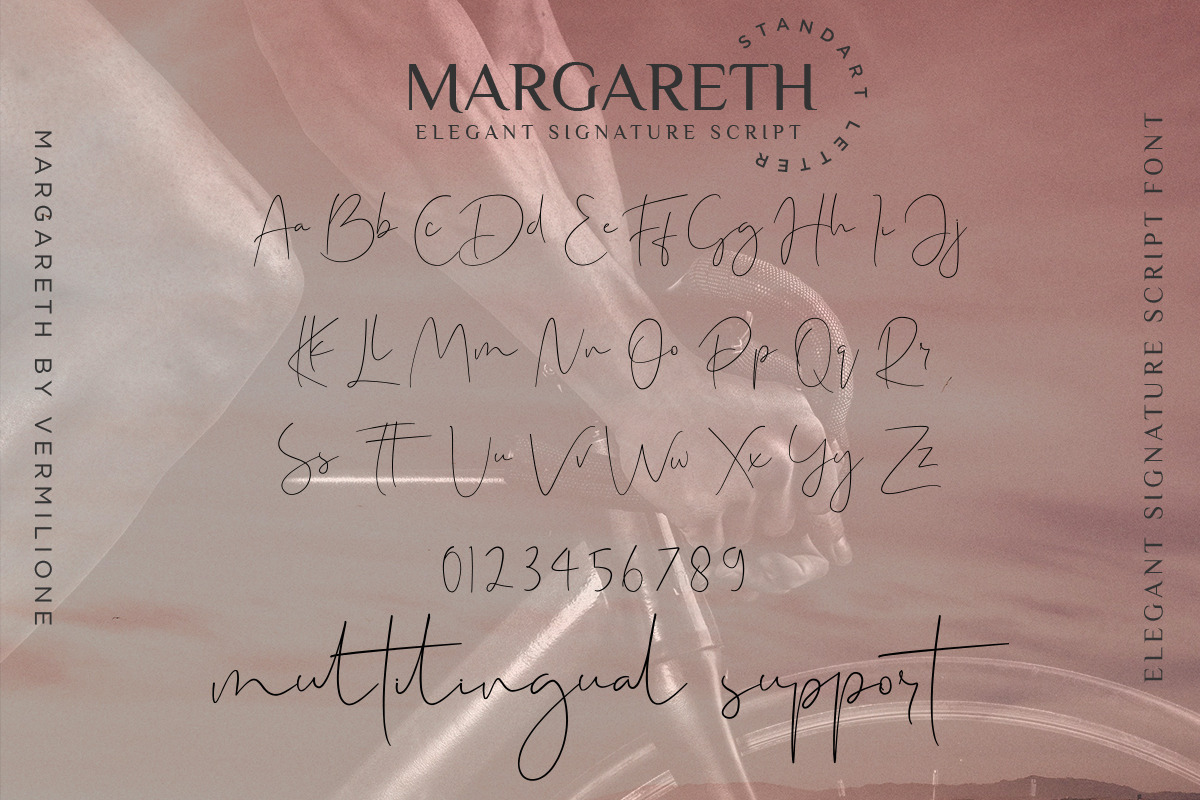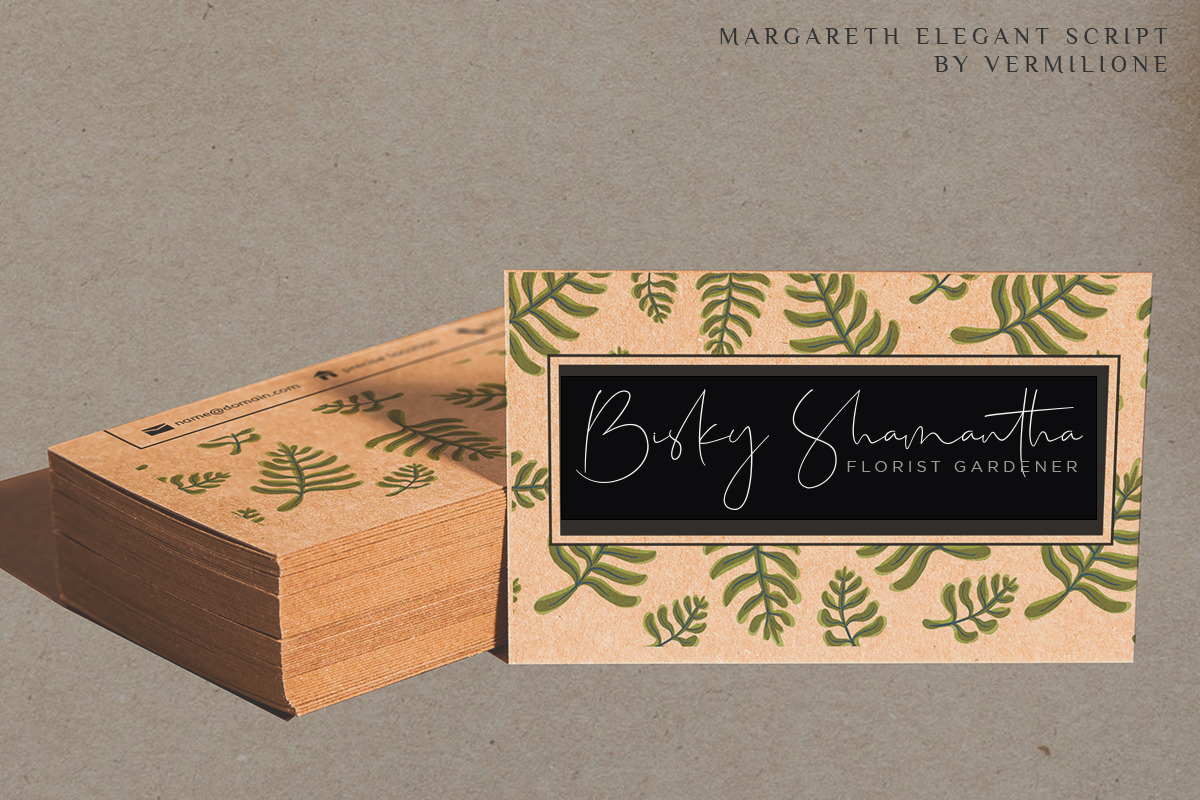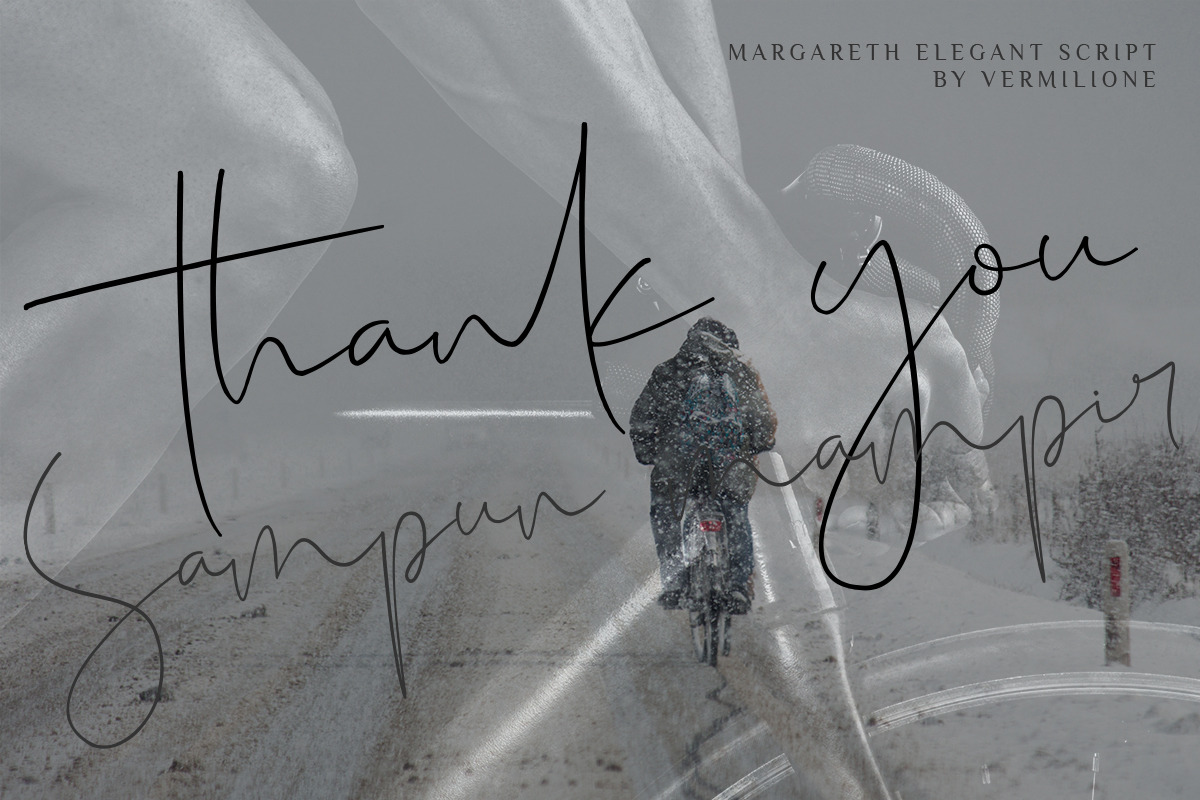
margareth elegant signature script
MARGARETH ELEGANT SIGNATURE SCRIPT
As a graphic designer, who worked/works a lot on creating branding, we often are requested to design a logo in Signature style, but with the vibe of real hand lettering. So, this font is an embodiment of this idea. This is perfect for BRANDING. They also work well with something like cosmetics, weddings, quotes & all kinds of signature stylish logos. You won't get cute, whimsical, funny logos with this font.
Only high-end, upscale, sophisticated Branding Design.
To keep maximum real hand lettered effect, there were created 130 ligatures & 7 alternates (you can see them among presentation pictures).When creating the font, we should take into consideration that each letter should be able to be connected with other letters. MARGARETH font contains following ligatures:
aa ab af ah aj ak al all ar at att bb bh bk bl br bt by cb cc cf ch cj ck cl cr cs ct eb ee ef eh ej ek el ell er et ev ex ett fh fj fk fl fr fs fy gb gg gh gj gk gl gt hb hk hl ht mb mh mk ml mt nn nb nh nk nl nt pp pb ph pk pl pt ss sb sh sk sl st ub uh uk ul ull ut utt yy yb yh yk yl yt Ch Cl Cr Gh Gl Gr Ob Oh Ok Ol Or Ot oo Sh Sk Sl Sr St Yh
MARGARETH also includes full set of uppercase and lowercase letters, multilingual symbols, numerals, punctuation. The font has thin pen ink texture, so would be perfect for all types of printing techniques you can do embroidery, laser cut, gold foil etc.